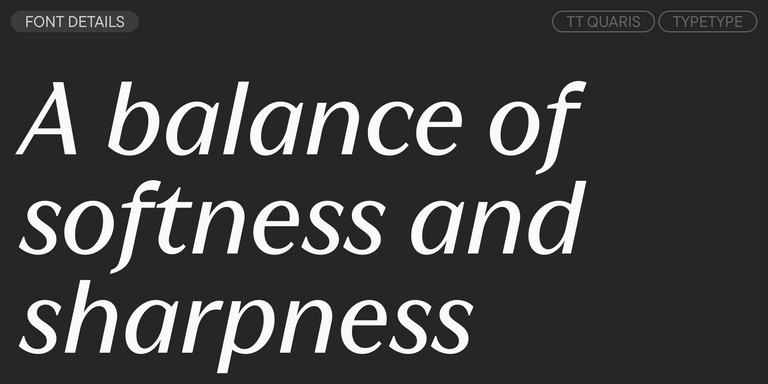
Fonts similar to Orchidea Pro
If you are tired of overused typefaces and are looking for fonts similar to Orchidea Pro, check out our best free-to-try Orchidea Pro alternatives, which have similar characteristics as well as new, unique design features. Some of the fonts belong to the same type category, and others are suitable for the same tasks or have similar traits but stand out for their distinct details or proportions.
Find a great Orchidea Pro replacement font and try to recreate a similar mood and capture the feeling you aim for by using it in your designs. Each font presented on this page is a twin of the Orchidea Pro font, practically identical to it.
TT Nooks Serif is a display modern serif with a slight touch of egocentricity. It has a sharp and firm, yet elegant and stately character.
TT Nooks Script features a unique design that has no direct analogs.
TT Quaris is an exquisite, modern high-contrast sans whose design balances between soft and sharp. The glyph shapes in the font are fluid and tend towards roundness, yet there are also sharp elements.
TT Ricordi Allegria is a sleek and intelligent contemporary Florentine grotesque.
TT Modernoir is a display sans serif with dynamic proportions. Fluid lines and delicate Art Nouveau forms in this typeface blend seamlessly with the rhythmic flow and improvisational freedom of jazz.
TT Ramillas is a contemporary serif with editorial versatility. It features decorative styles and ornamental initials with floral motifs.
TT Drugs is a typeface that doesn`t feature serifs but stands out for its high contrast.
TT Octosquares is a fresh, revised, expanded, and significantly improved version of our first commercial font TT Squares & its narrow version.
TT Knickerbockers Grotesk is a narrow contrast sans serif with characteristic elements sending us back to the 19th century in New York.
TT Prosto Sans is a font family for any tasks. You can use this font almost everywhere.